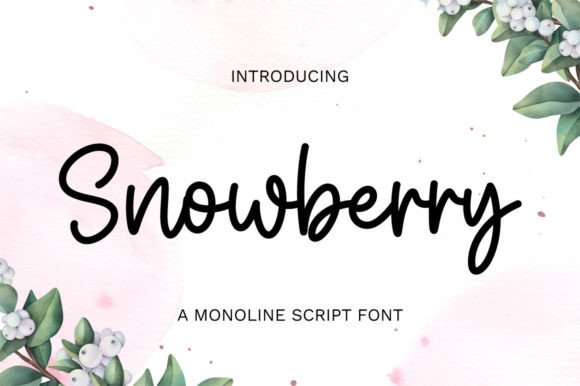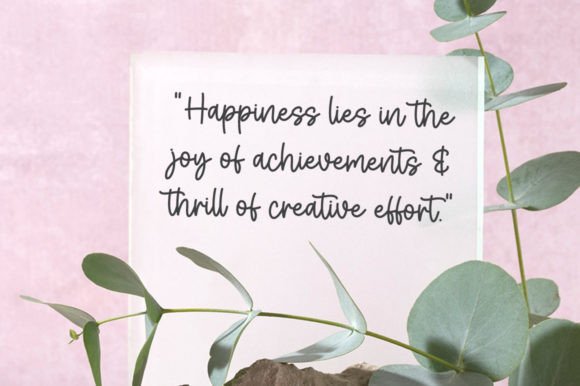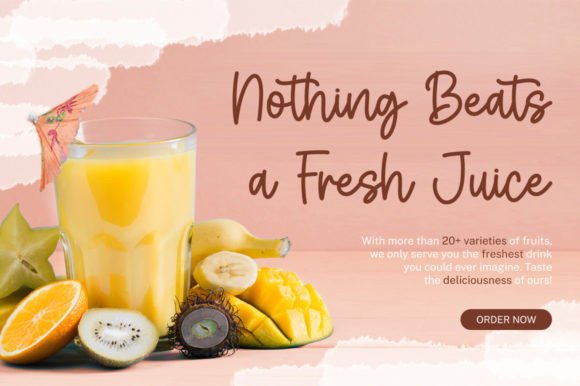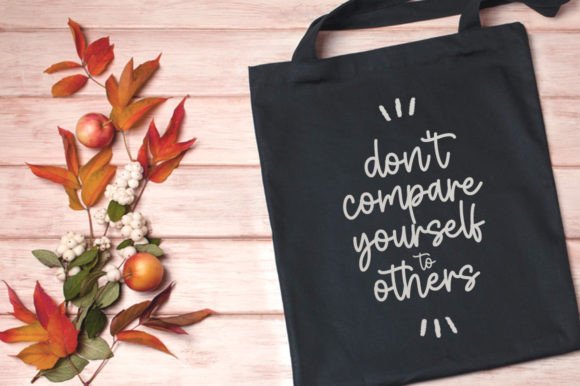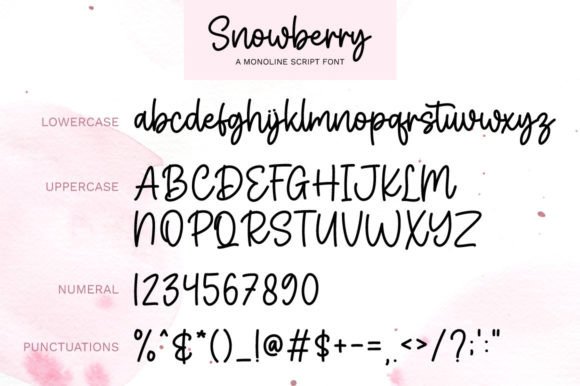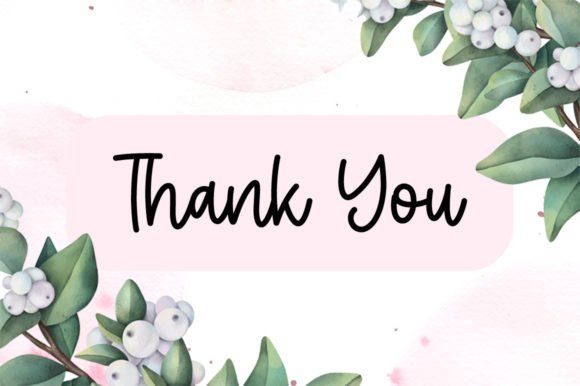
Snowberry Font
Snowberry Handwritten Font – Elegant and Flowing Typeface
The Snowberry Handwritten Font is a delicate and refined script typeface designed to add elegance and charm to your creative projects. With its monoline strokes and well-balanced characters, it offers a timeless handwritten flow that feels graceful and modern at the same time. Whether you’re designing invitations, logos, or greeting cards, this font elevates your work with sophistication.
A Handwritten Script with Elegance
The Snowberry Handwritten Font combines flowing curves with monoline consistency, giving your text a polished handwritten look. Its elegant details make it visually appealing, while its readability ensures practicality. Because of this balance, it adapts beautifully to many types of projects, from personal designs to professional branding.
One of the best uses of the Snowberry Handwritten Font is in invitations and greeting cards. Its smooth flow and elegant curves bring a romantic touch to wedding stationery, thank-you notes, and personal messages. At the same time, it enhances logos, posters, and branding projects by adding a refined handwritten style.
The Snowberry Handwritten Font adapts easily to different contexts. From product packaging and business cards to social media graphics and magazine layouts, it provides a stylish handwritten charm. Its combination of elegance and clarity ensures that it works well in both digital and print designs.
Why Designers Love Snowberry Font
Designers love the Snowberry HandwrittenFont for its refined appearance and ease of use. Its graceful strokes make it suitable for decorative purposes, while its clean monoline form ensures it remains practical for professional layouts. This makes it a must-have for any designer’s collection.
In summary, the Snowberry HandwrittenFont is a delicate, elegant, and versatile script typeface. With its flowing handwritten style, quick installation, and wide usability, it is perfect for invitations, logos, greeting cards, and branding. Don’t miss the chance to download Snowberry HandwrittenFont and bring timeless elegance to your designs.